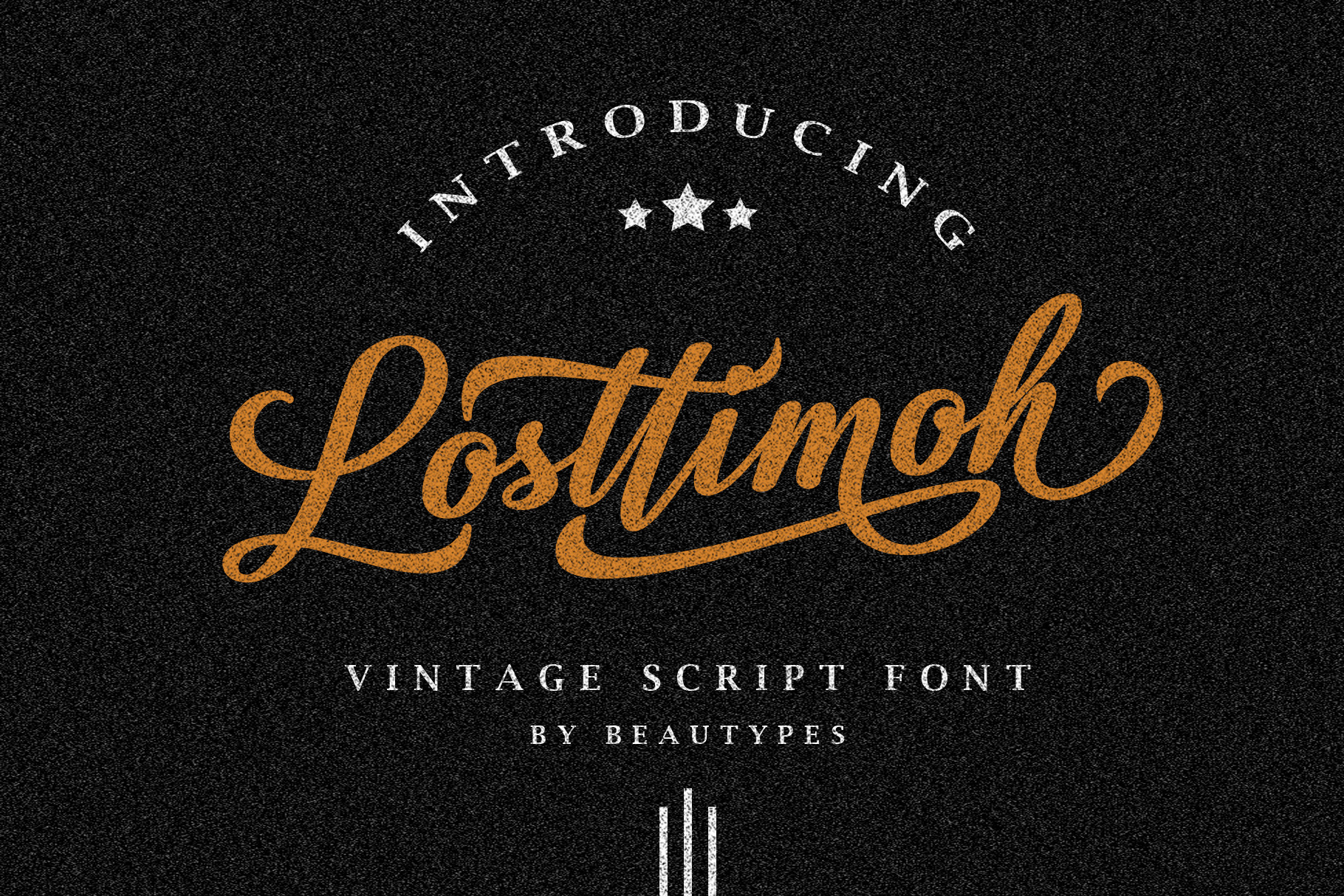
Losttimoh - Vintage Script Font
Losttimoh a standout bold script with a touch of vintage look and feel. This type of font perfectly made to be applied especially in logo, headline, signage, and the other various formal forms such as invitations, labels, logos, magazines, books, greeting/wedding cards, packaging, fashion, makeup, stationery, novels, labels or any type of advertising purpose.